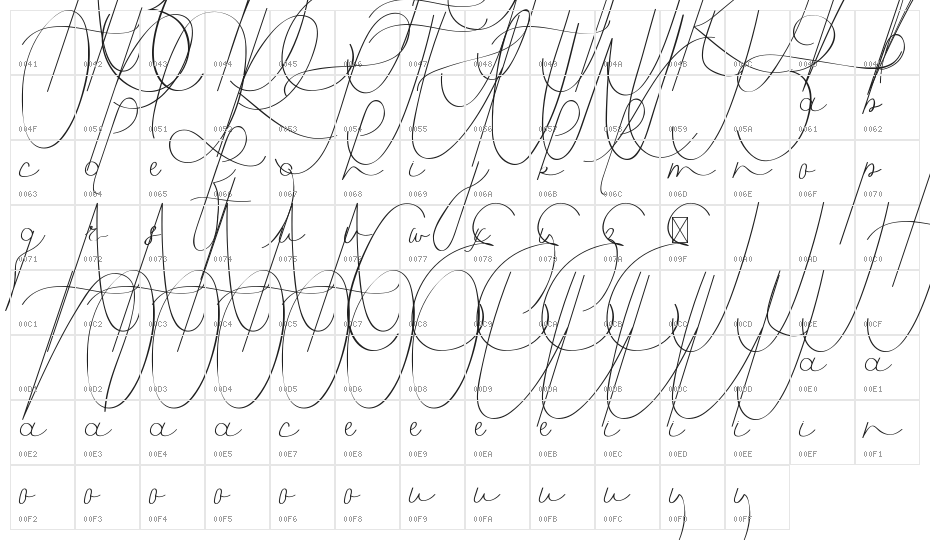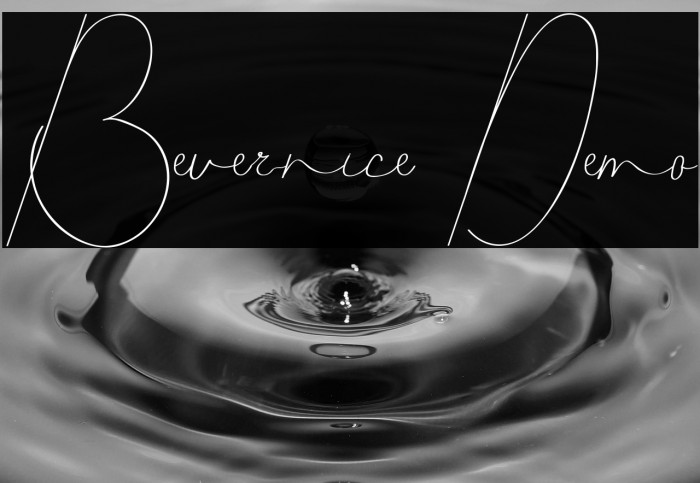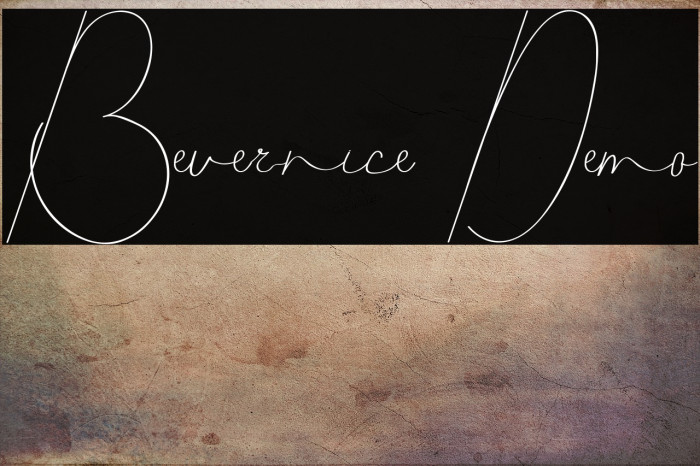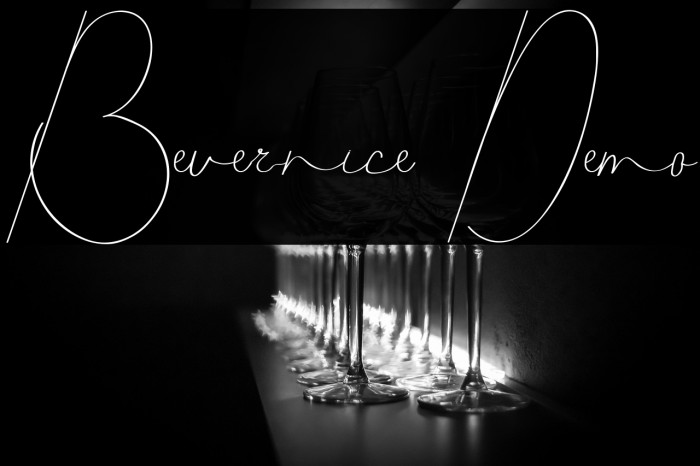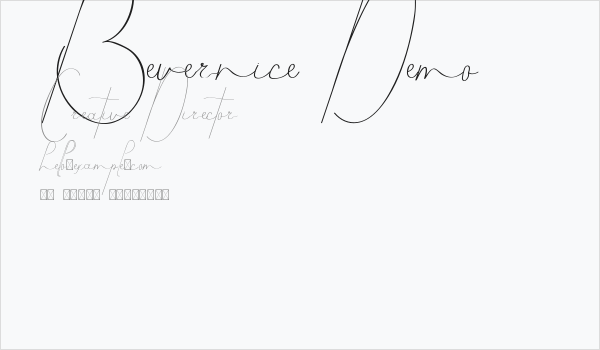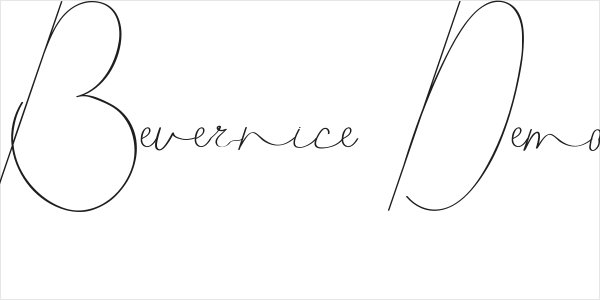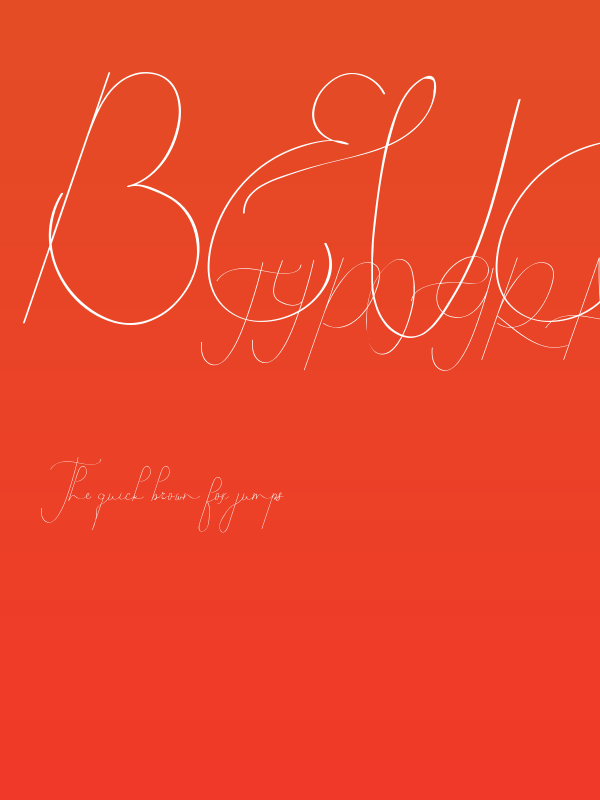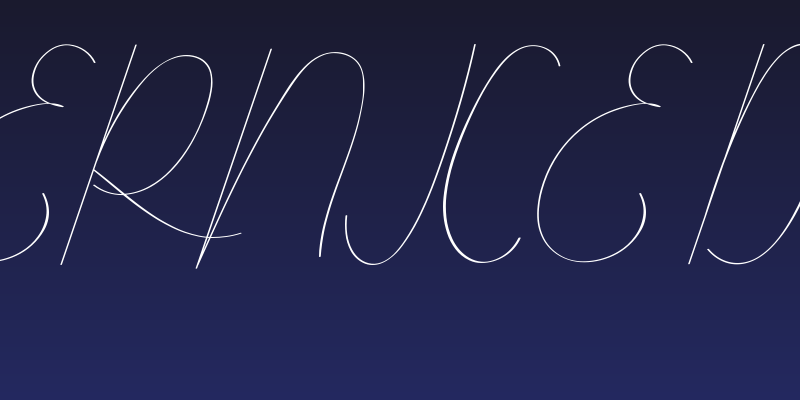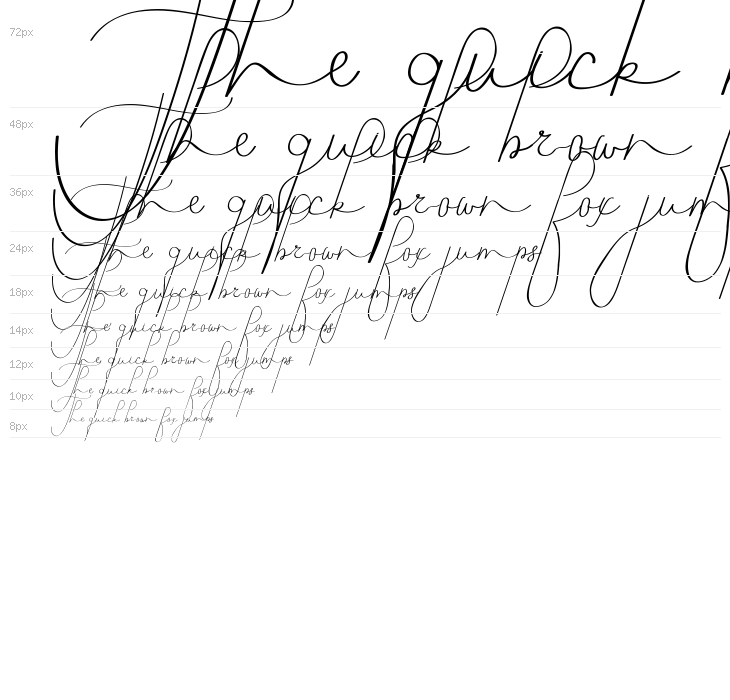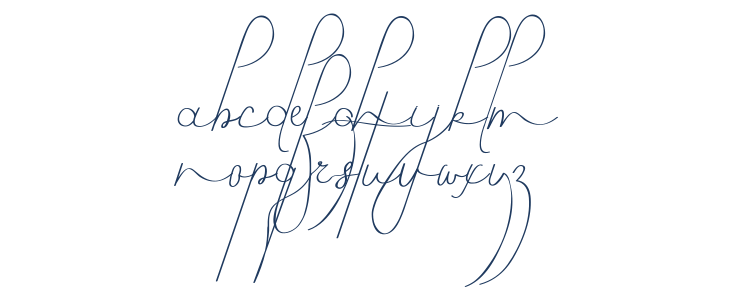
Bevernice Demo Font
Bevernice Demo Description
This elegant script font features a delicate, flowing style with thin, graceful lines that create a sense of sophistication and fluidity. The characters are interconnected, emphasizing a seamless, cursive appearance. The uppercase letters are tall and slender, while the lowercase letters maintain a consistent, harmonious flow. The font's overall design is airy and light, making it ideal for projects that require a touch of elegance and refinement. Its unique style is perfect for creating a personal and artistic touch in various design applications.
| Proposed Projects | Ideal for wedding invitations, elegant branding, personal stationery, and artistic projects. |